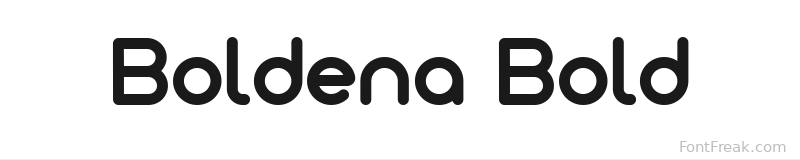
Boldena Bold
About Boldena Bold
Boldena Bold by Mukhlis Muhammad is a striking sans-serif font that exudes modernity and confidence. Released in 2022, this typeface showcases a robust and clean design, characterized by its substantial stroke weight and minimal contrast. The uniform thickness of the letters creates a sense of balance and stability, making it an excellent choice for a variety of applications. The spacing between characters is thoughtfully designed to ensure readability while maintaining a contemporary aesthetic, allowing for seamless integration into various layouts.
This font is ideal for a range of use cases, including eye-catching movie posters, dynamic restaurant menus, and stylish branding materials. Its bold presence makes it particularly suitable for headlines and promotional graphics, where grabbing the viewer's attention is paramount. Additionally, graphic designers and content creators will find Boldena Bold to be a versatile tool for digital and print projects alike, enhancing the visual impact of their work.
Small business owners looking to elevate their brand will appreciate the strong yet approachable nature of this font. It can effectively convey a sense of professionalism while remaining accessible, making it suitable for everything from corporate communications to creative ventures.
What sets Boldena Bold apart is its ability to strike a balance between boldness and clarity. The font’s straightforward design allows it to stand out in any context without overwhelming the viewer. Whether you’re working on a personal project or a professional campaign, the Boldena Bold font free download offers a unique opportunity to enhance your designs with a typeface that embodies modern sophistication. With its versatility and impact, this font is sure to make a lasting impression in any creative endeavor.